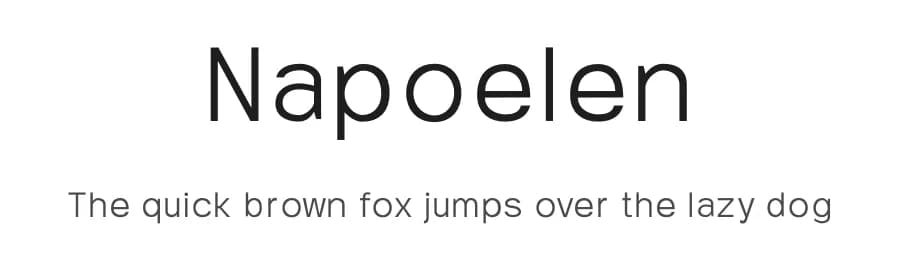
About Napoelen Font
Napoelen is a font that resembles the shape of a simple and elegant geometry, this font is suitable for use in simple design themes.
Napoelen font consicst of 10 styles, namely:
- Thin
- Thin italic
- Light
- Light italic
- Regular
- Italic
- Bold
- Bold italic
- Black
- Black italic
| Designer | Arief Rochman |
Napoelen Font is a versatile sans-serif font that works for both headings and body text. Pair it with a contrasting serif or slab serif font to add visual interest and a clear distinction between titles and body copy.
Napoelen Font